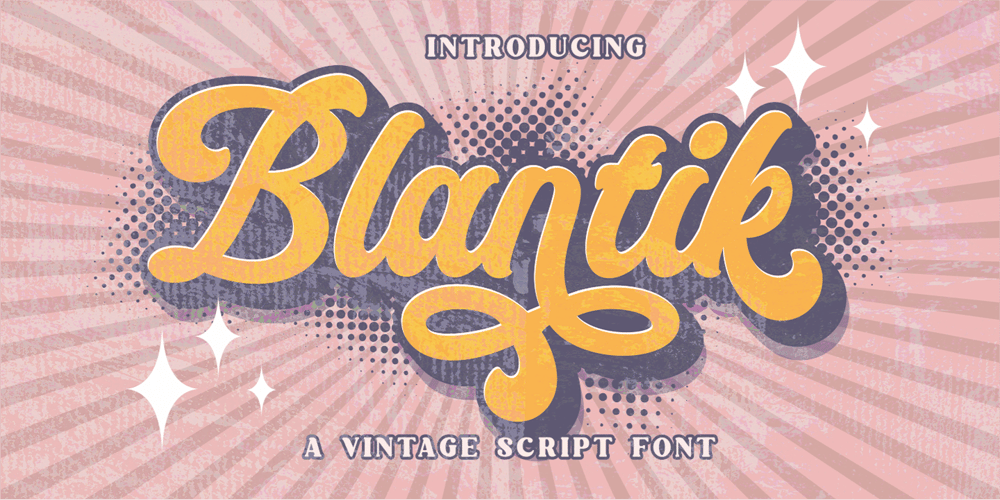
Blantik Calligprahy
Blantik Calligprahy font
Blantik Calligprahy Font Family was designed by Hanief Farandi and published by Hanzel Space. Blantik Calligprahy contains 1 styles and family package options. Introducing Blantik Script Font. This font is made with a unique touch of curves and has a vintage feel complemented by an interesting swash. This font is perfect for all your design needs. These include logos, posters, movie titles, branding, book covers, flyers, and others.Whats Include: Blantik Multilingual Support Alternates, ligature,Thank You… Hanzel Space